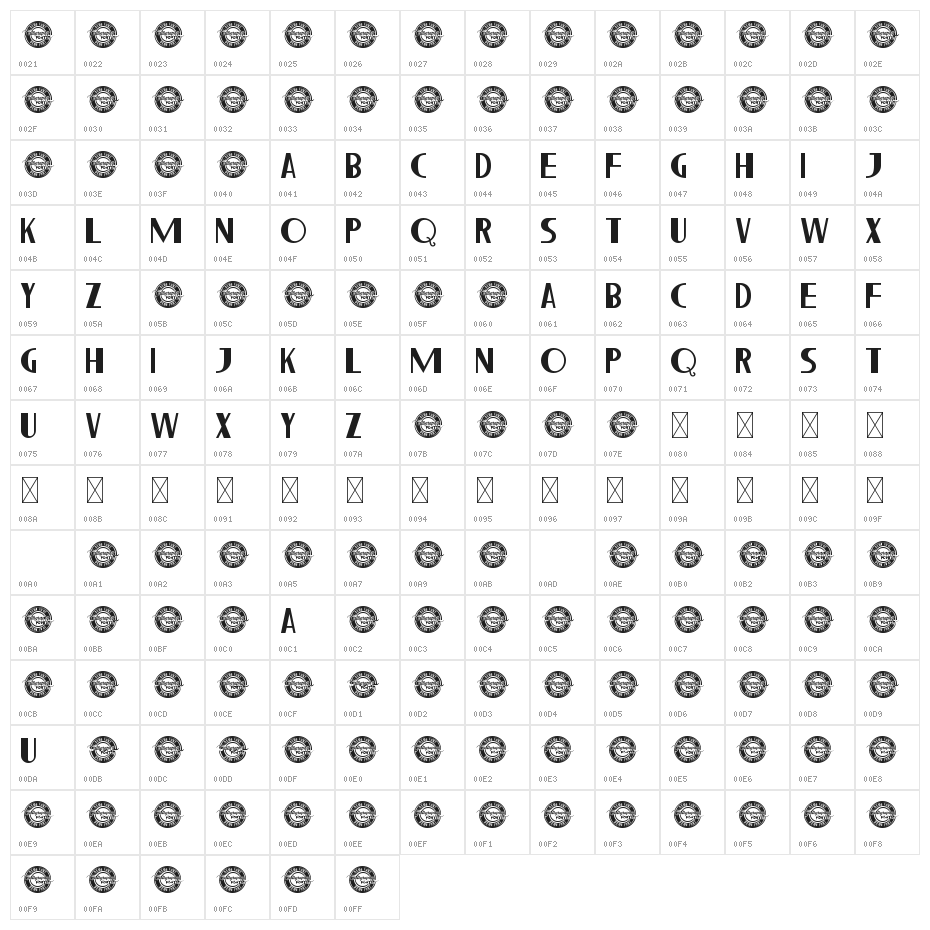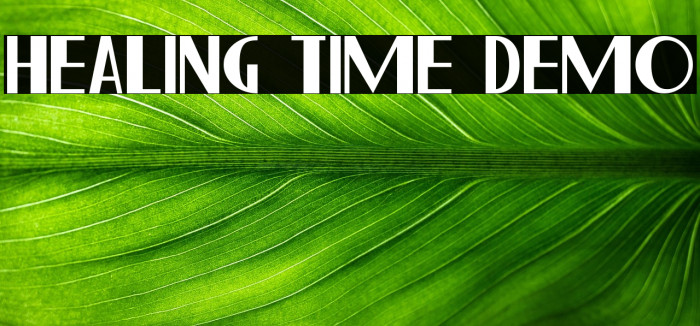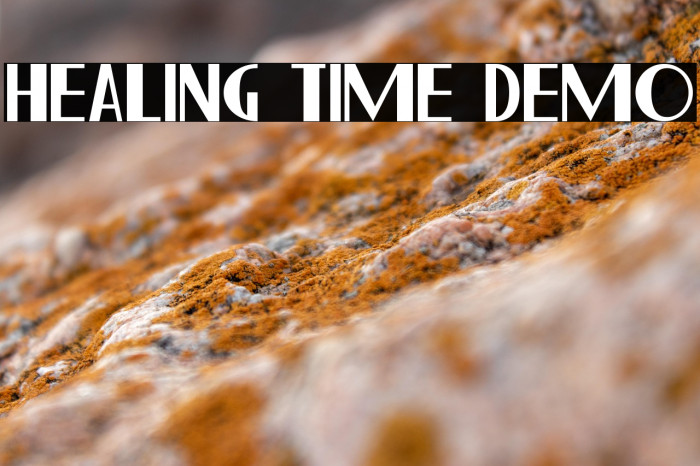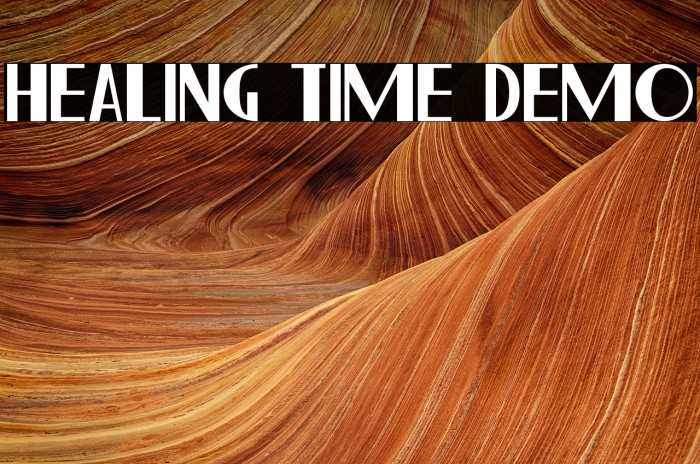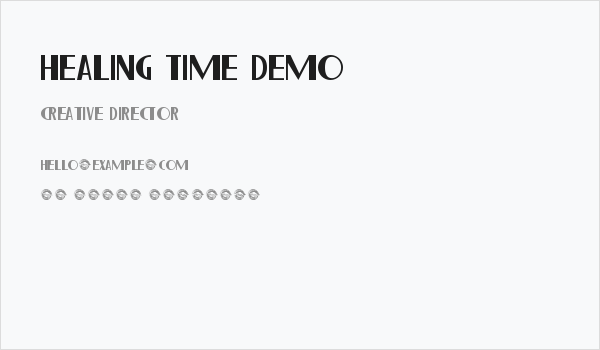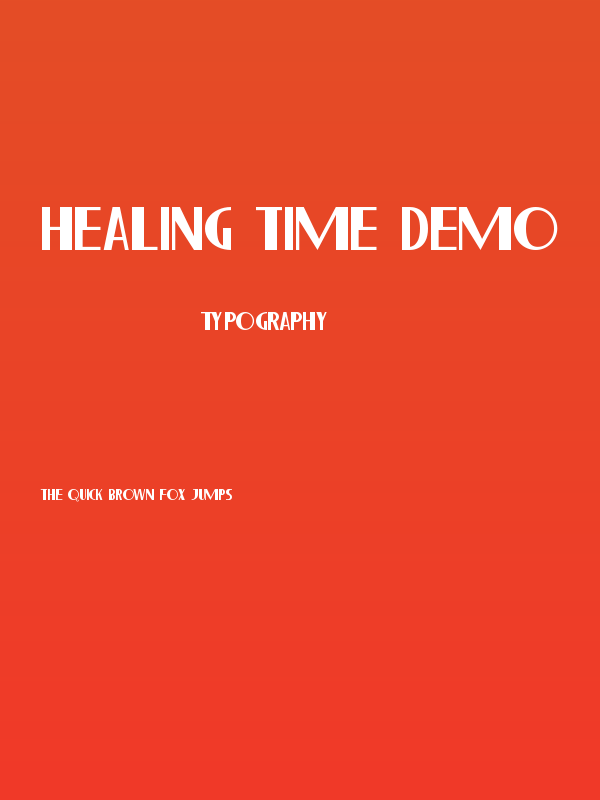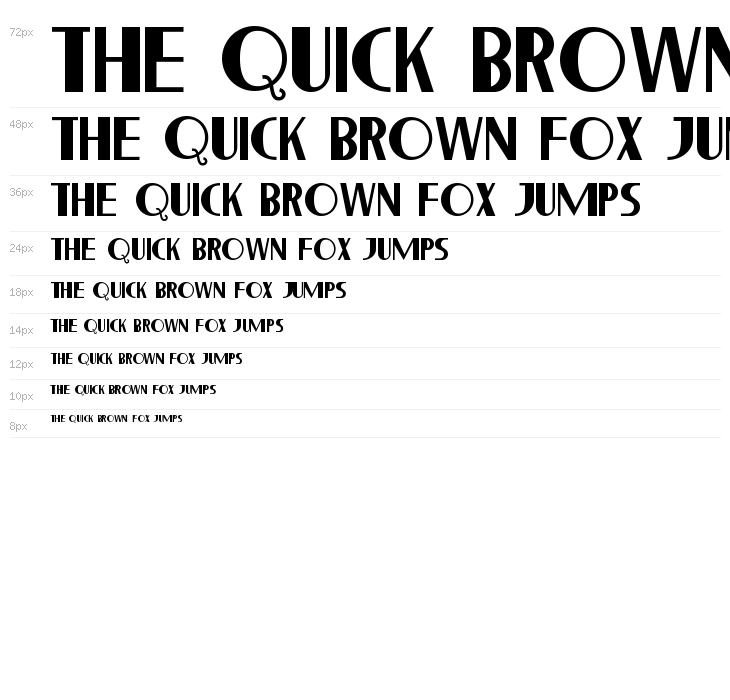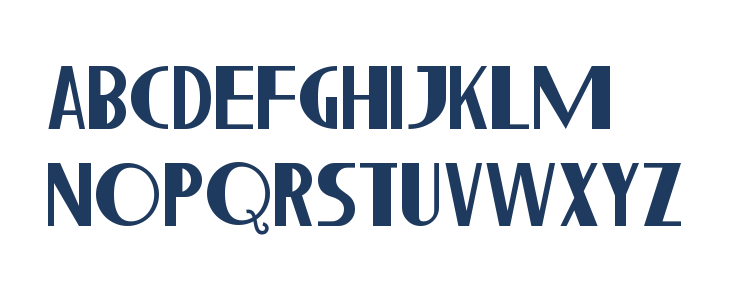
Healing Time Demo Font
Healing Time Demo Description
This font features a bold and striking design with a modern flair. The characters are crafted with a unique blend of sharp angles and smooth curves, creating a dynamic and eye-catching appearance. The uppercase letters exhibit a strong presence, while the lowercase letters maintain a consistent style that complements the overall aesthetic. The font's geometric elements are balanced with subtle decorative touches, making it versatile for various design applications. Its bold weight and high contrast in stroke thickness enhance readability and visual impact, making it suitable for headlines and display purposes.